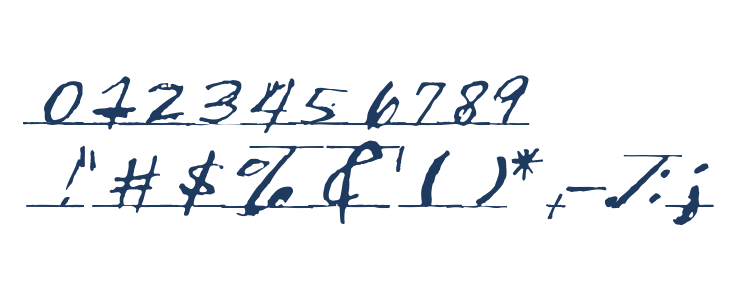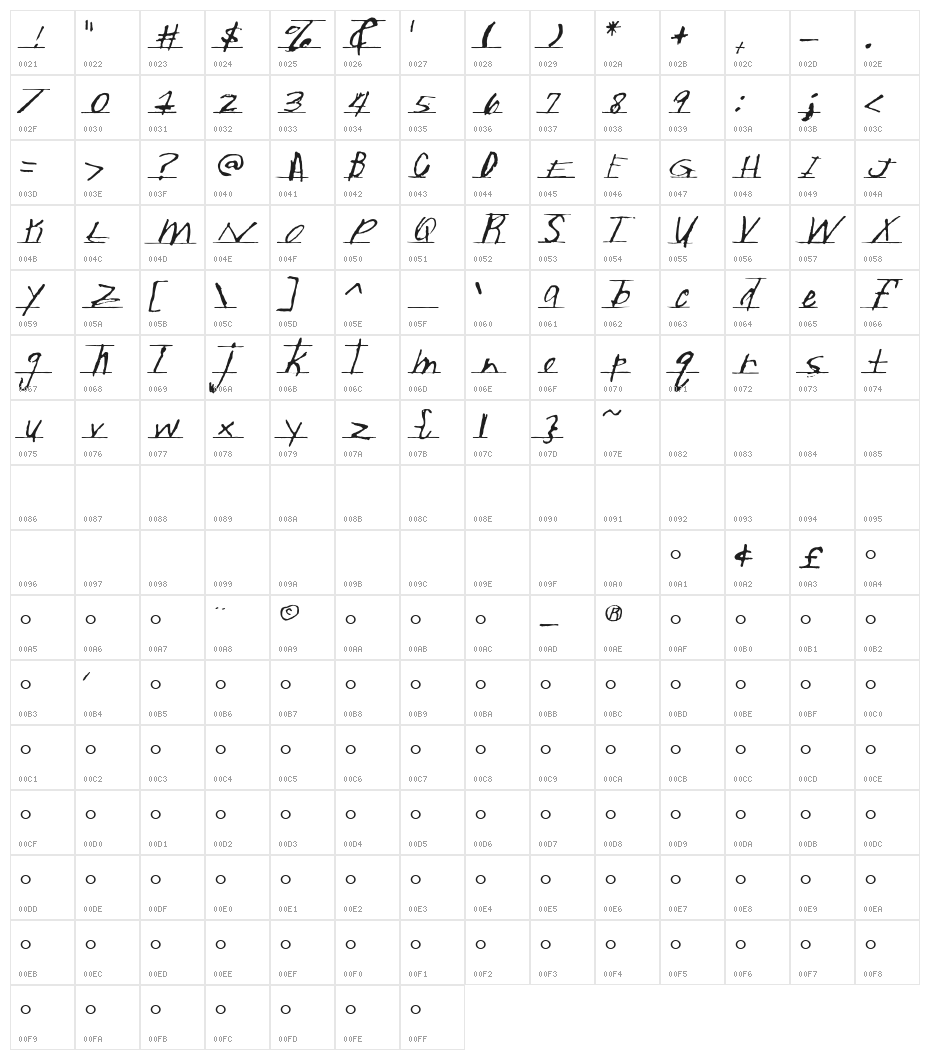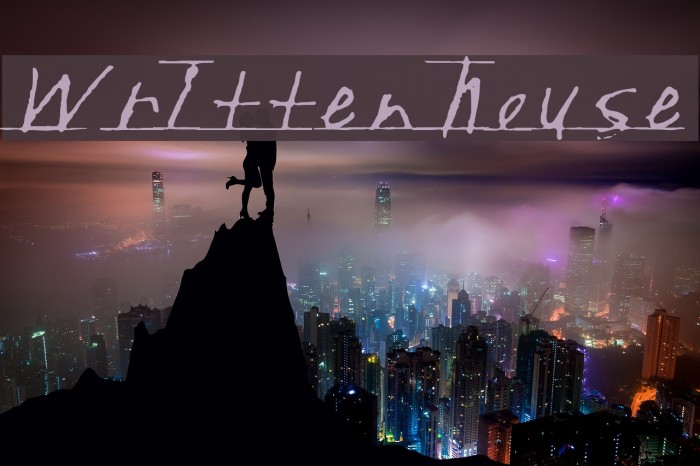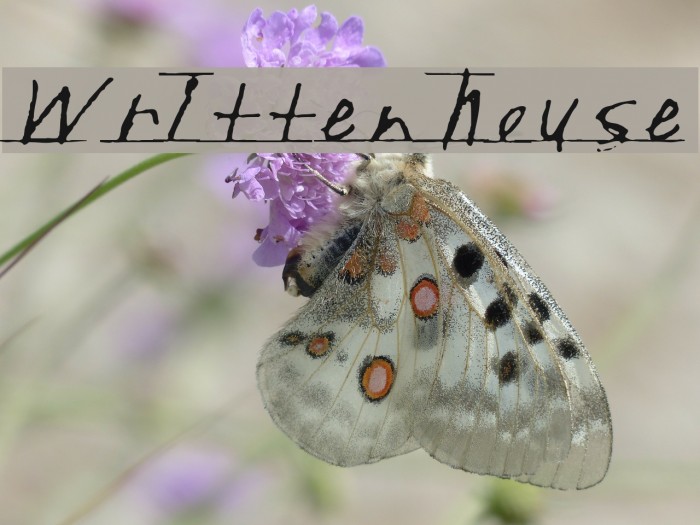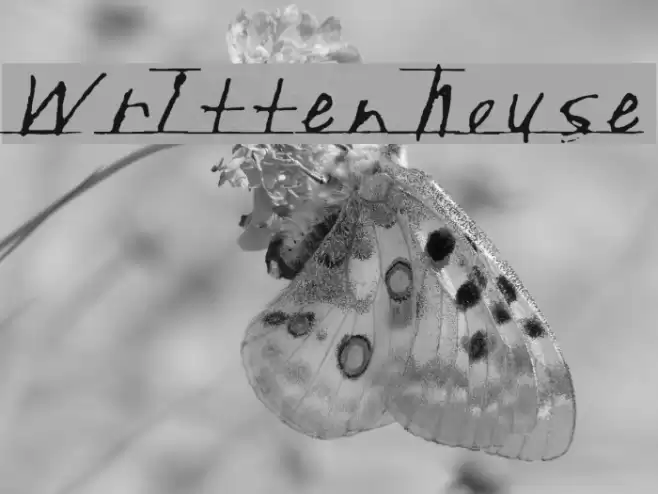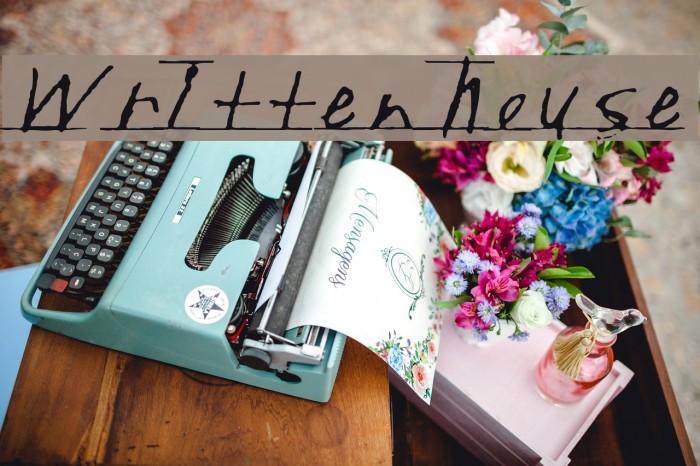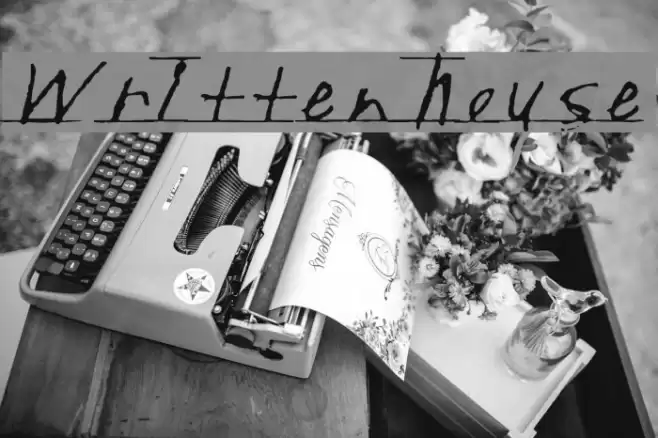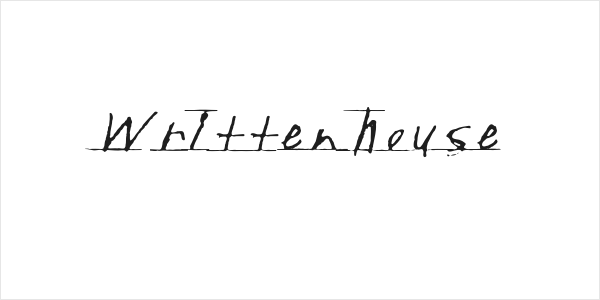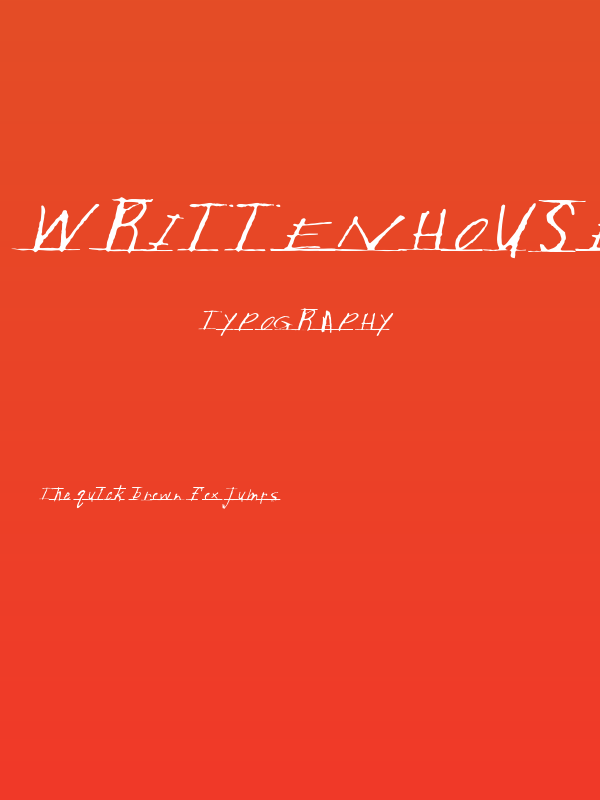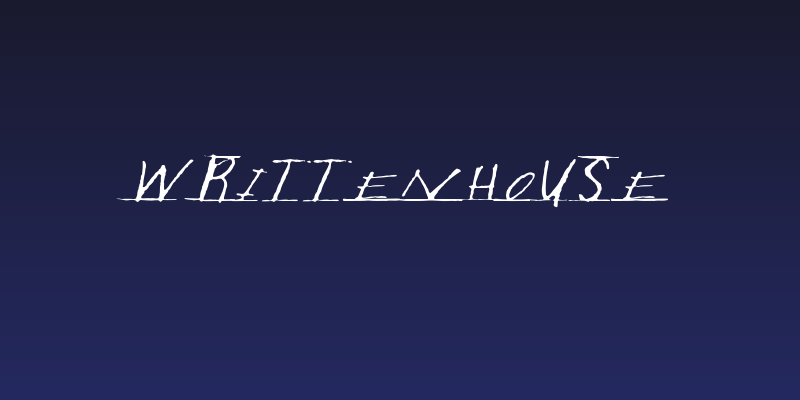
Writtenhouse Font
Writtenhouse Description
This font exhibits a handwritten style with a casual and organic feel. The characters are slightly slanted, giving an impression of fluidity and motion. The strokes are uneven, with varying thickness, adding to the authentic handwritten look. The uppercase letters are distinct yet maintain a cohesive style with the lowercase set. Numbers and special characters follow the same aesthetic, ensuring consistency across all elements. The overall appearance is informal and personal, making it suitable for projects that require a touch of individuality and warmth.
| Proposed Projects | Ideal for personal notes, invitations, greeting cards, and creative projects that benefit from a personal touch. |